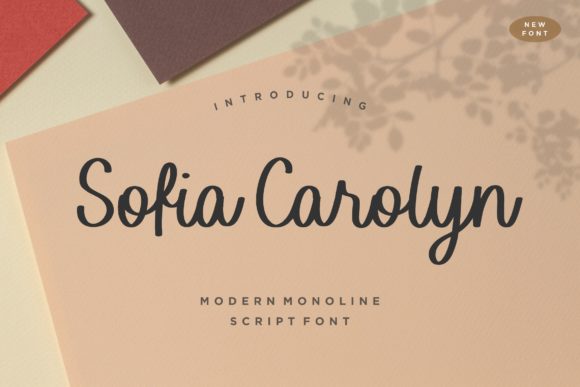
In a world where individuality reigns supreme, Sofia Carolyn Font, a script font of unmatched grace, awaits your creative embrace. Its delicate strokes, reminiscent of a gentle whisper, lend an air of elegance to every letter, every word, every design. Bathed in the light of creativity, Sofia Carolyn dances across the page, captivating hearts with its effortless flow.
Crafted with meticulous care by Balpirick, a visionary artist with a passion for the written word, Sofia Carolyn is not merely a font; it's an invitation to embark on a journey of self-expression. Its versatility knows no bounds, effortlessly adapting to a myriad of design aesthetics. Whether you seek to capture the essence of timeless romance, the allure of modern minimalism, or the warmth of rustic charm, Sofia Carolyn stands ready to transform your vision into a tangible masterpiece.
With Sofia Carolyn as your trusted companion, you'll discover hidden depths of creativity within yourself. Its beautifully balanced characters, each a testament to Balpirick's unwavering attention to detail, harmonize seamlessly to create designs that resonate with your audience. Whether you're crafting a heartfelt letter, designing an eye-catching logo, or weaving a captivating story through visual storytelling, Sofia Carolyn will elevate your words, imbuing them with a touch of magic.
Imagine the joy of witnessing your designs come to life, imbued with the timeless beauty of Sofia Carolyn. Let your creativity soar as you explore the infinite possibilities that await you. Indulge in the satisfaction of creating designs that speak to the soul, designs that captivate and inspire. With Sofia Carolyn as your creative partner, you'll leave an indelible mark on the world, one breathtaking design at a time.